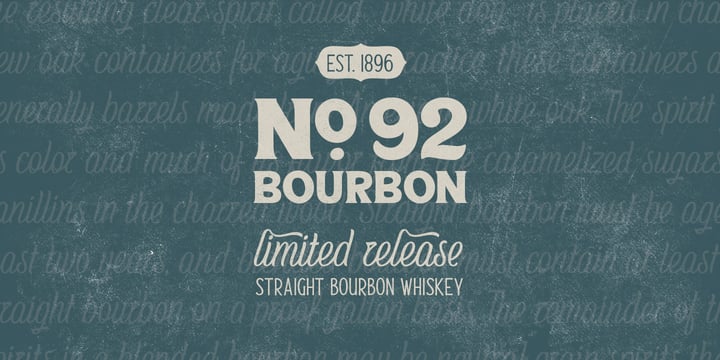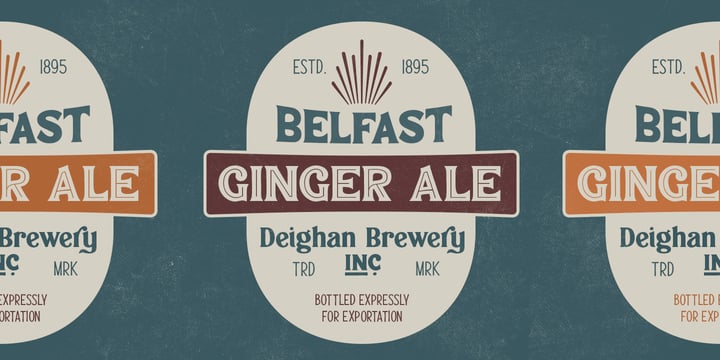
Antiquary
by DimitriAna
The Antiquary Font Family was designed by Anastasia Dimitriadi and published by DimitriAna. Antiquary contains 8 styles and family package options.
The Antiquary font collection was designed and illustrated, to reanimate the art of vintage advertising design.
The fonts are inspired by the old ad posters and product labels, as well as the art of sign-making. The 4 typographic styles are combined with shapes and ornaments to create a variety of designs. They are ideal for logos, packaging, branding and all kinds of advertisements.
Typographic styles:
Antiquary: Old fashioned, serif, with 2 styles (Regular and Outline), stylistic alternates and ligatures.
Antiquary Wide: All caps, bold, serif, vintage, with 3 styles: Regular, Inline and Outline.
Antiquary Script: Modern brush calligraphy with terminal forms, contextual alternates, stylistic alternates and ligatures.
Antiquary Thin: All caps, minimal, old fashioned.
Antiquary Elements: 52 symbols, ribbons, frames and ornaments.
Designers: Anastasia Dimitriadi
DimitriAna is a type designer, letterer and illustrator. In 2014 she designed her first custom font, after attending lettering and typography courses. Since then, she designs typefaces, exploring different styles, based on handwriting, calligraphy, as well as the vintage hand crafted signage art. Many of them are combined to collections that produce a complete lettering artwork and her authentic handmade style is trusted by international creatives.